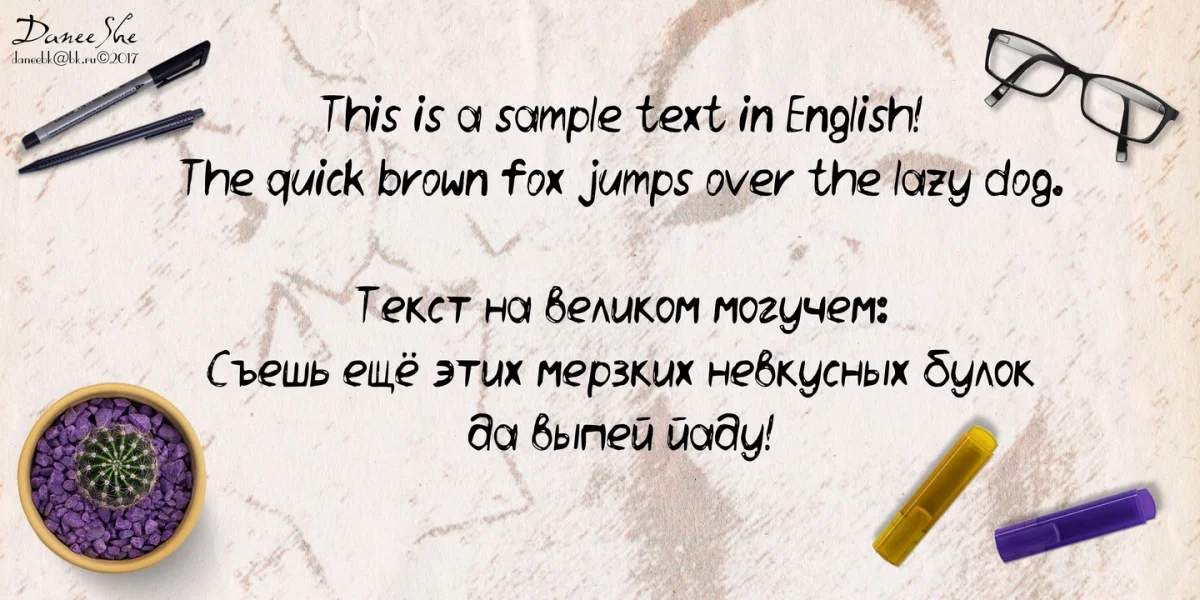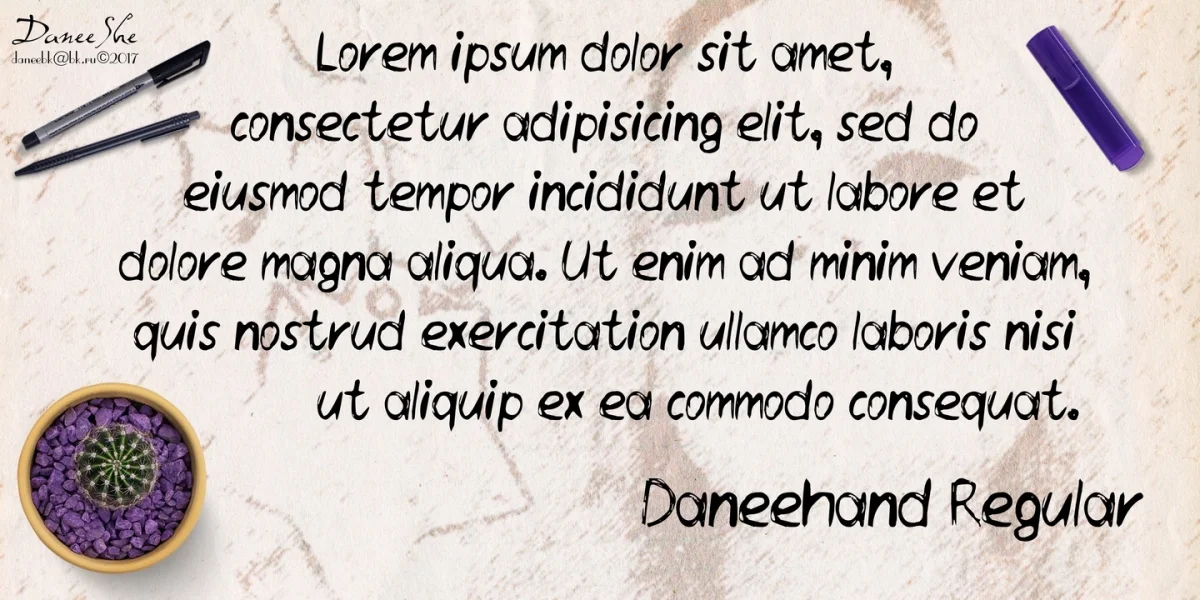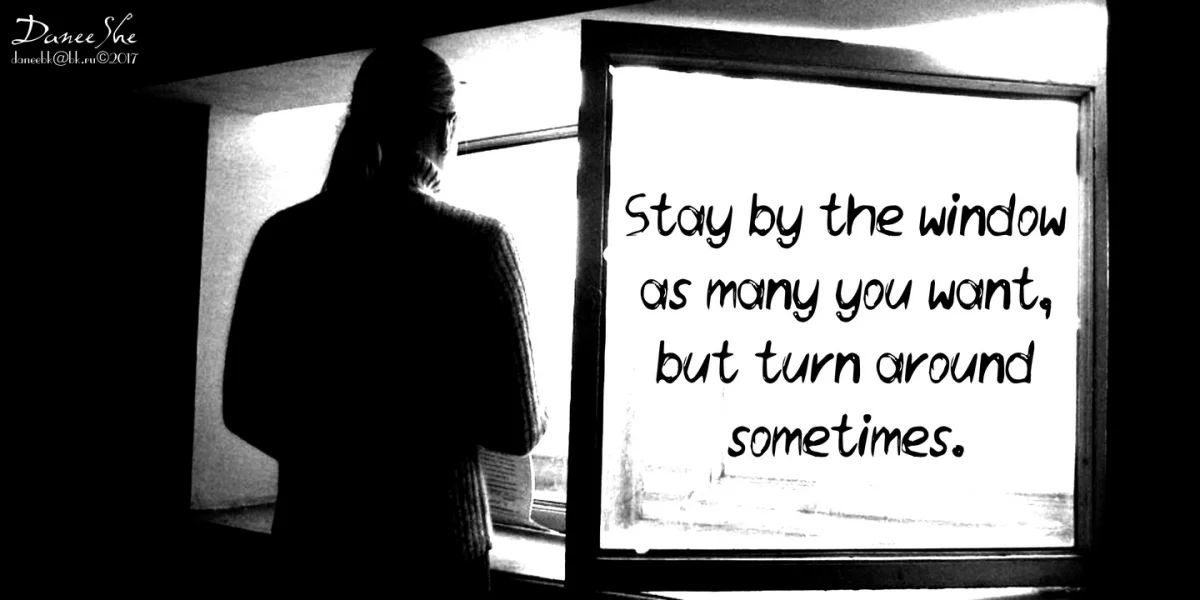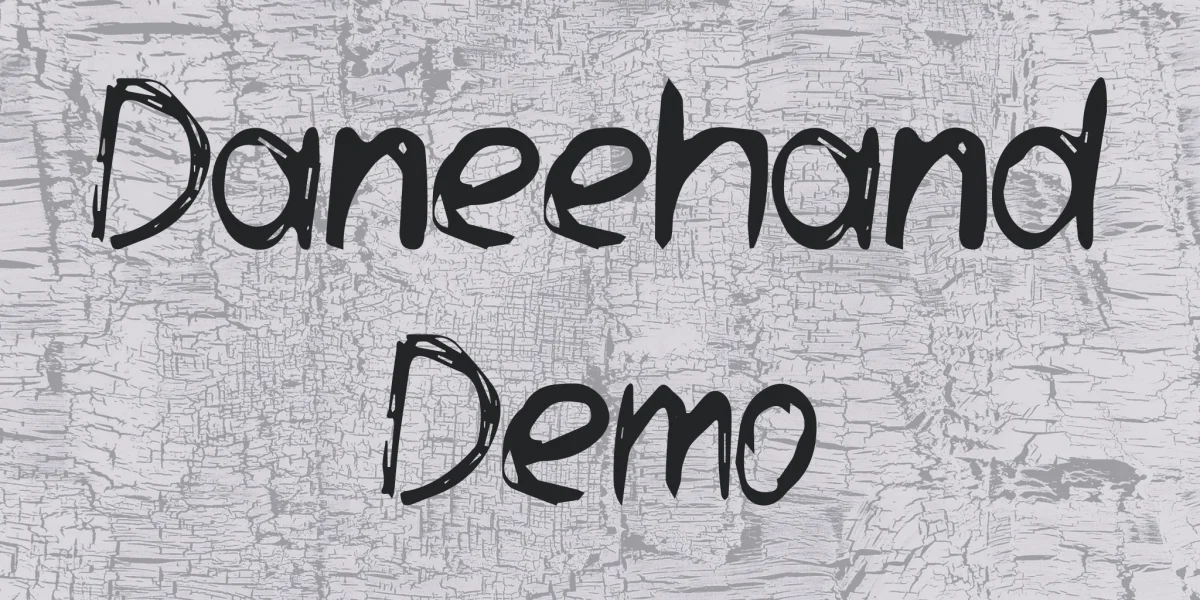
Daneehand is a hand written font in grunge style. The font has been drawn with thin highlighter by hand. Daneehand Demo is a demonstrative version of the full font. It includes only basic latin characters, main punctuation symbols and numbers.